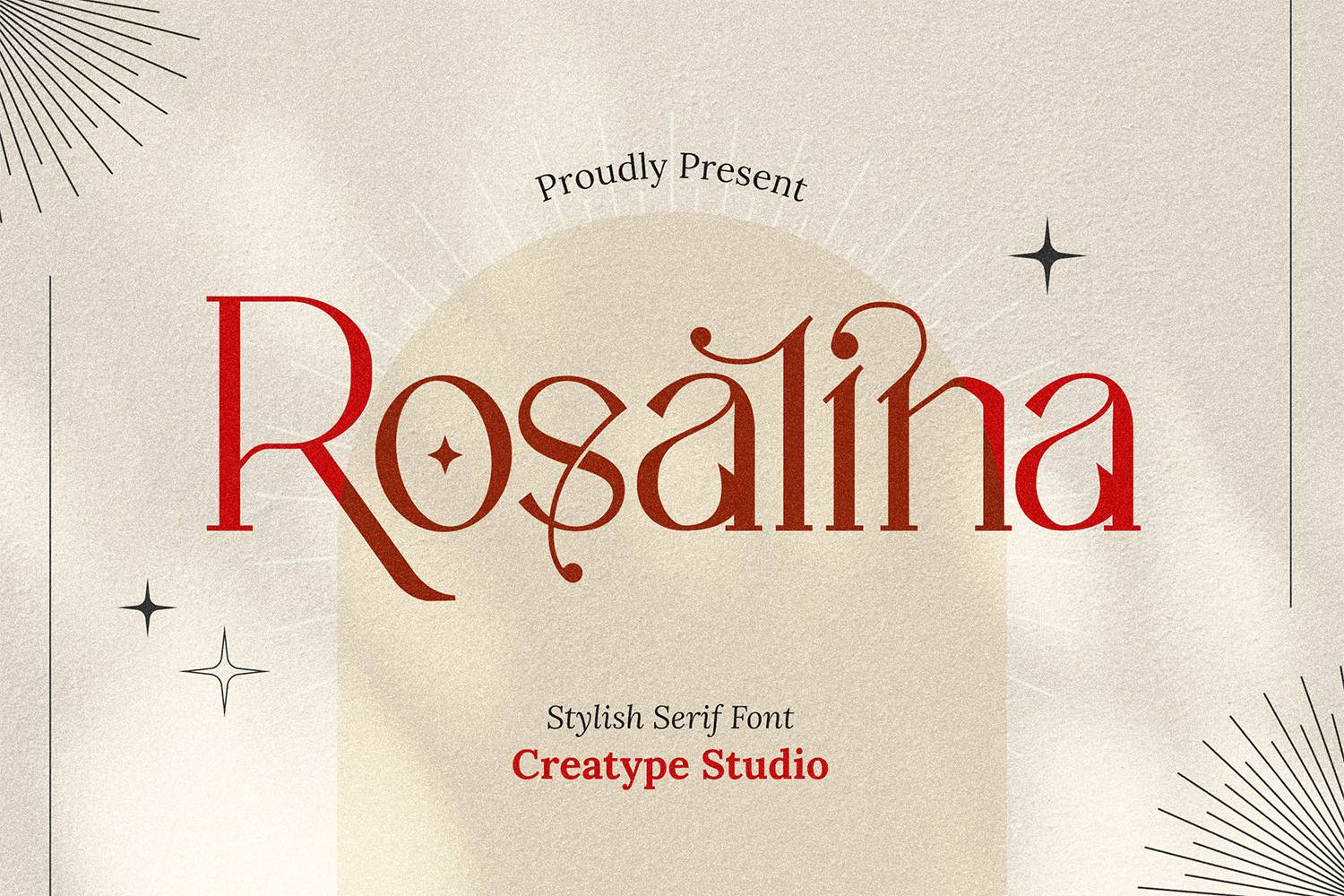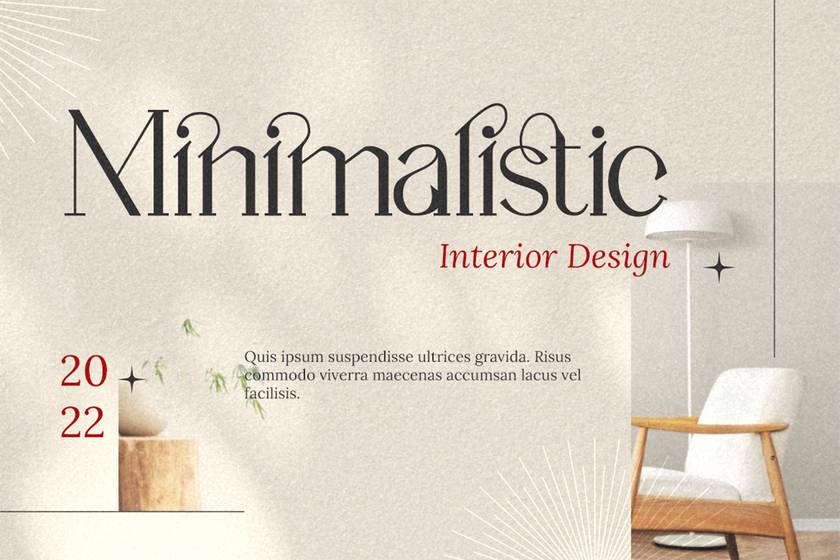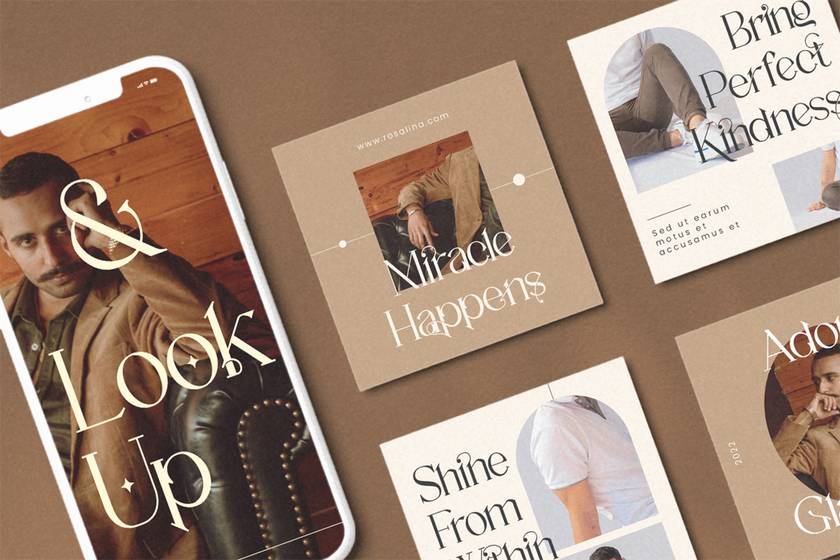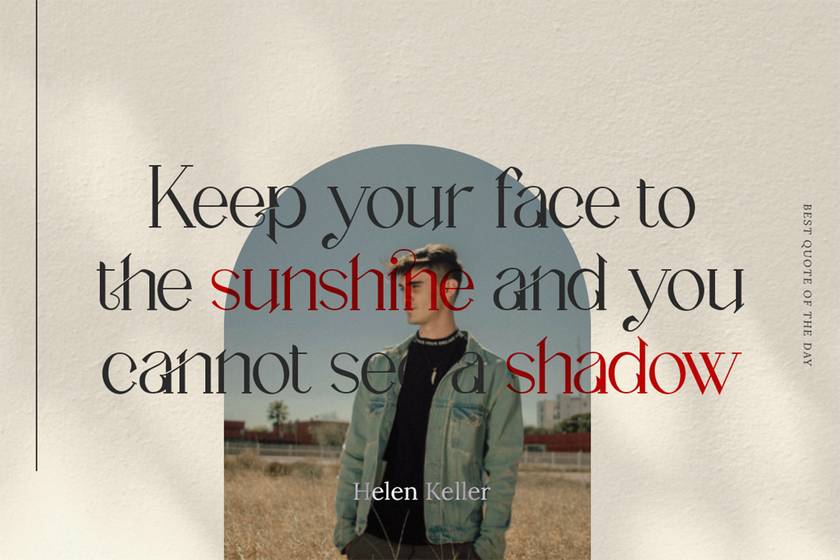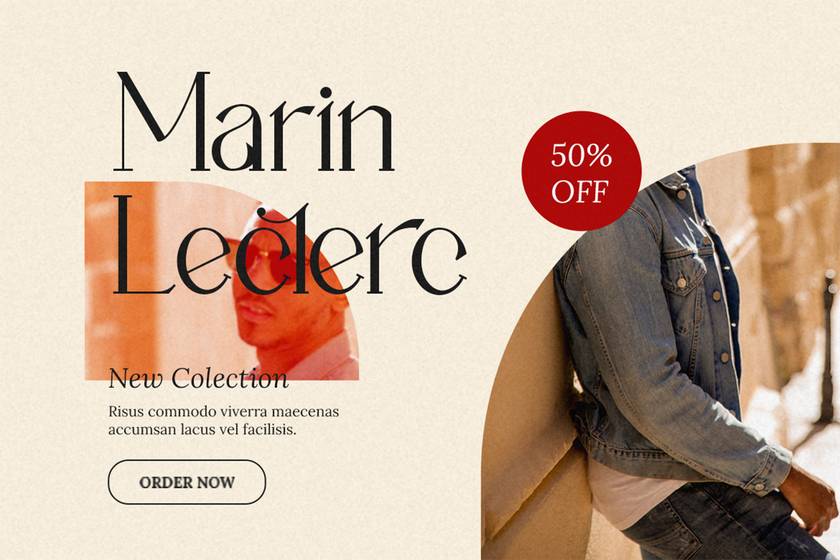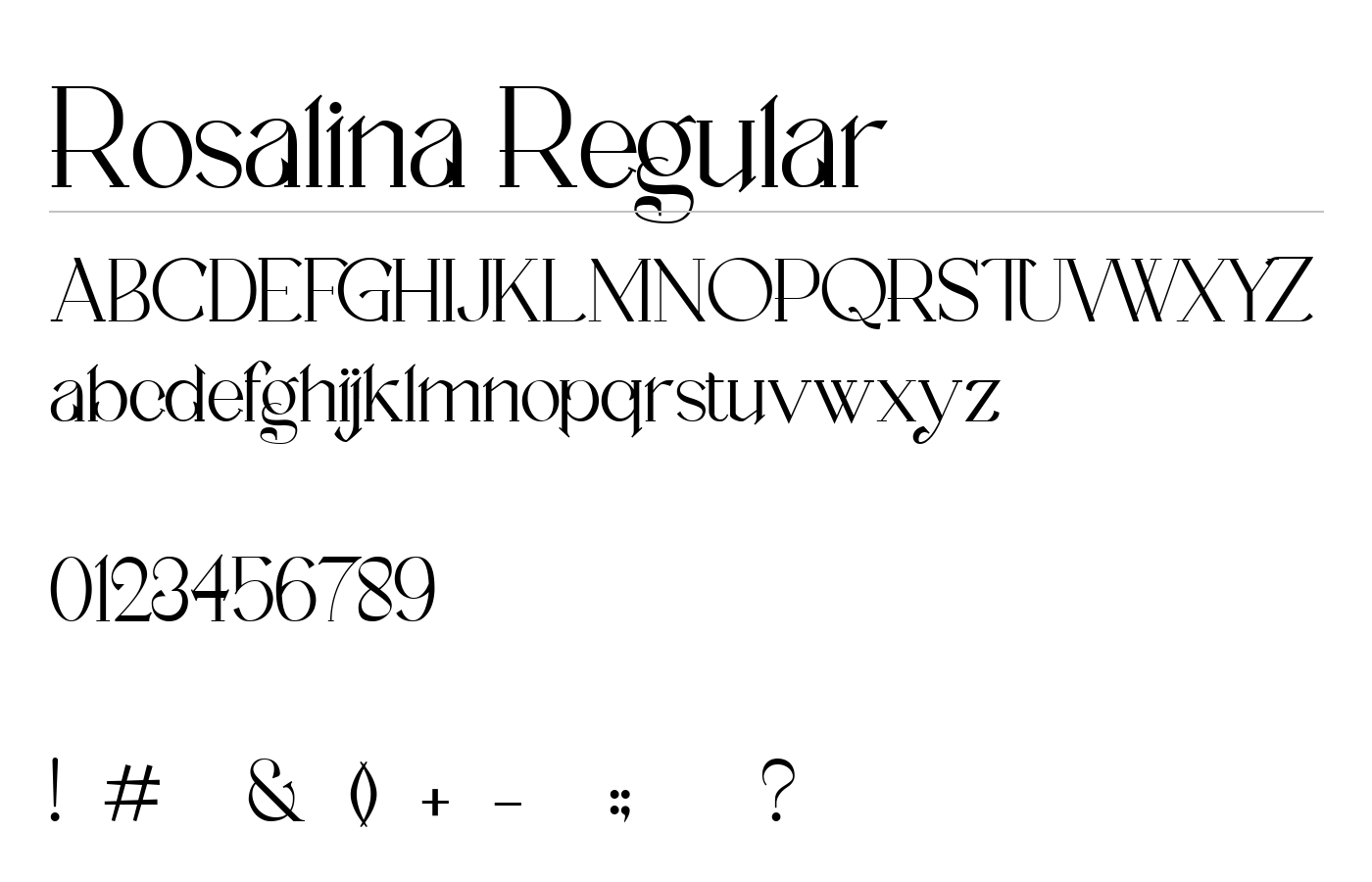
Rosalina is an elegant serif font characterized by its high contrast between thin and thick strokes, slender proportions, and delicate, bracketed serifs. Its tall x-height and unique letterforms with refined curves give it a sophisticated and stylish feel, making it perfect for luxury branding, fashion editorials, and upscale headlines where a touch of refinement and modern classic charm is desired.
Rosalina Font
About Rosalina Font